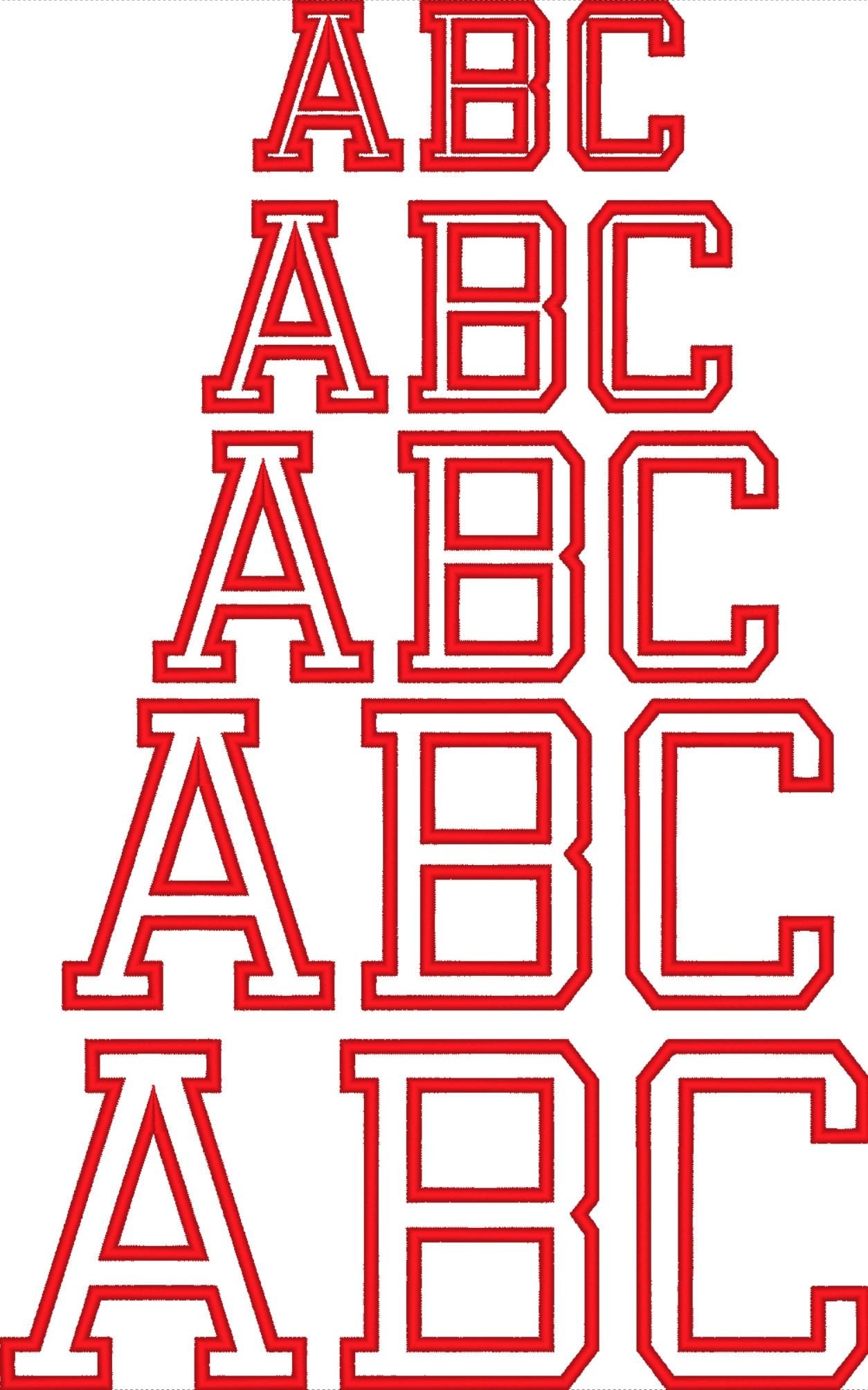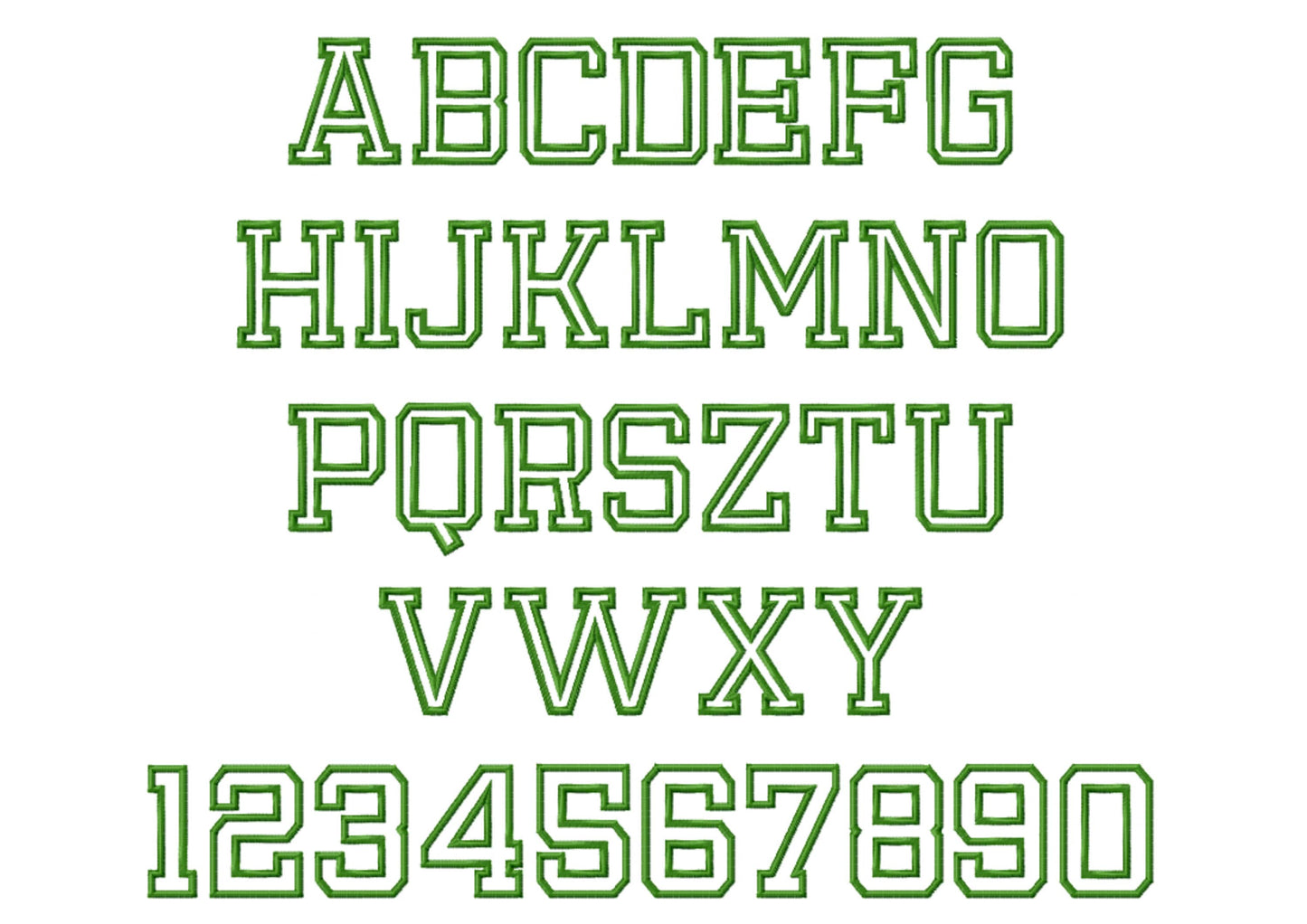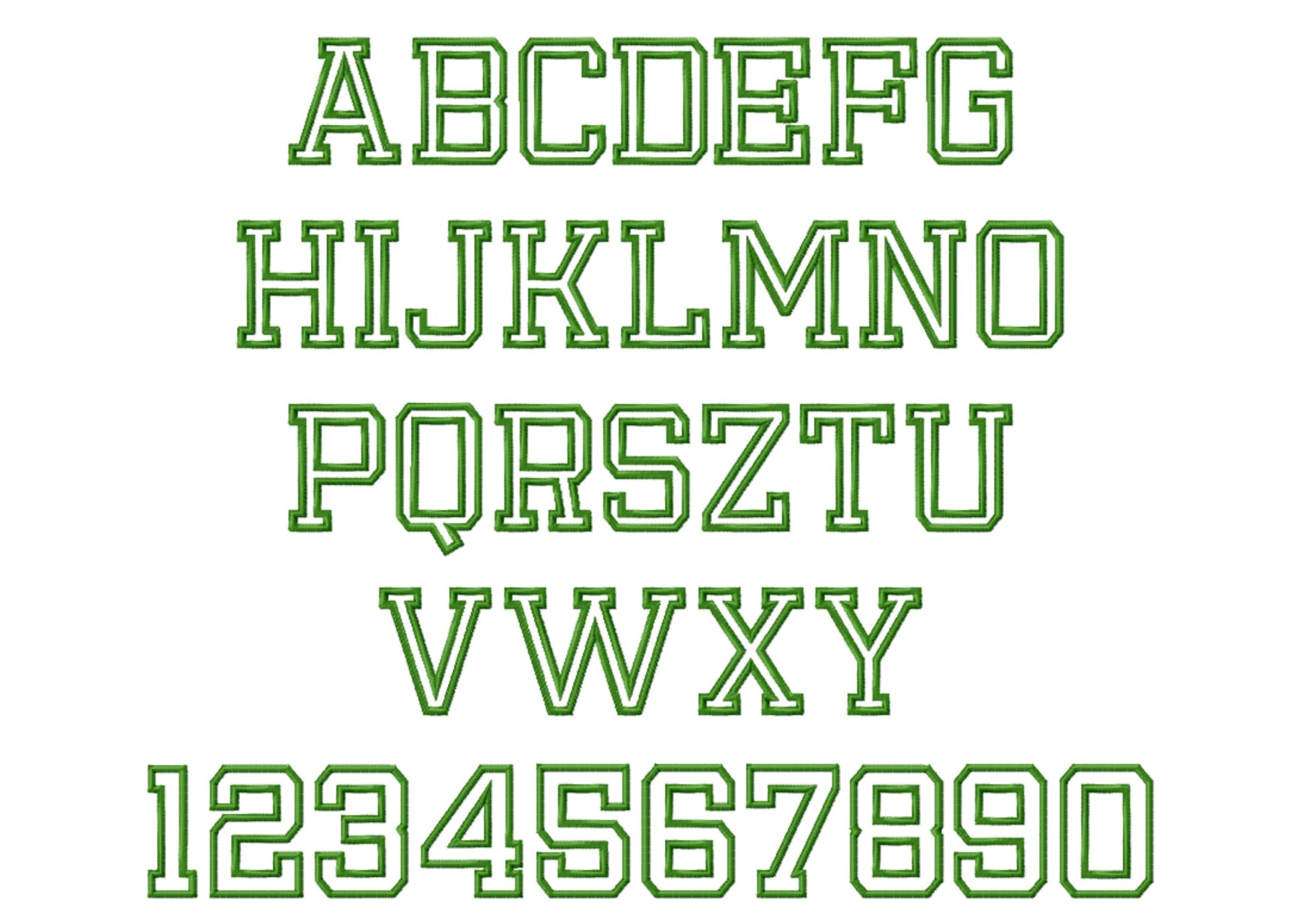
Or click to open the linkA thin varsity athletic font with a wide satin outline, for team names and numbers on jerseys, hoodies and bags.
Capital letters A to Z and numbers 0 to 9 in five sizes: 2, 2.5, 3, 3.5 and 4 inches.